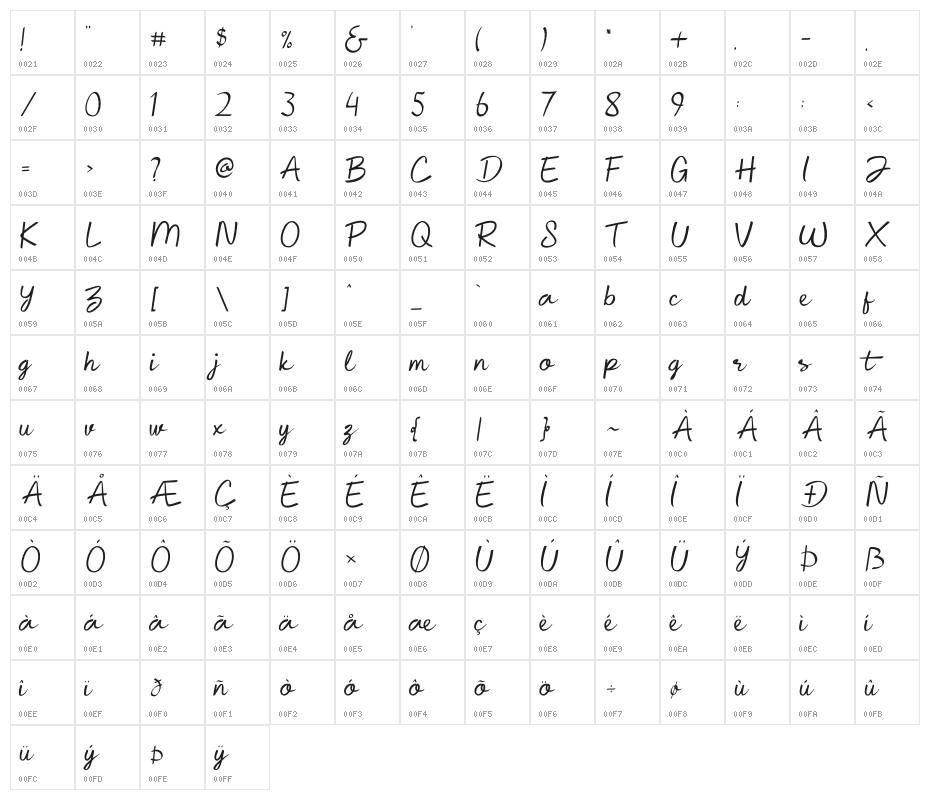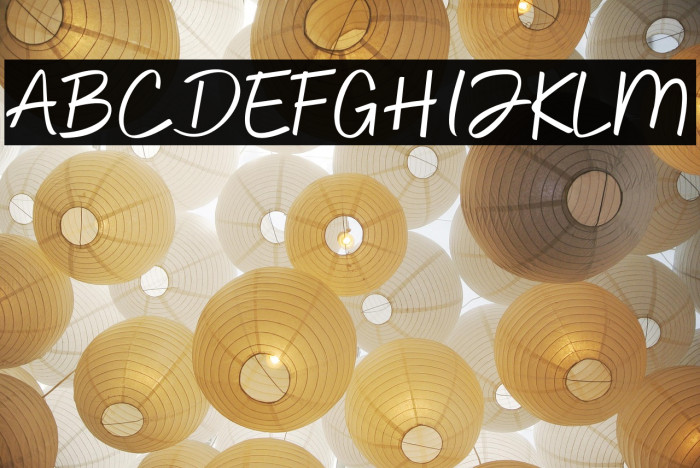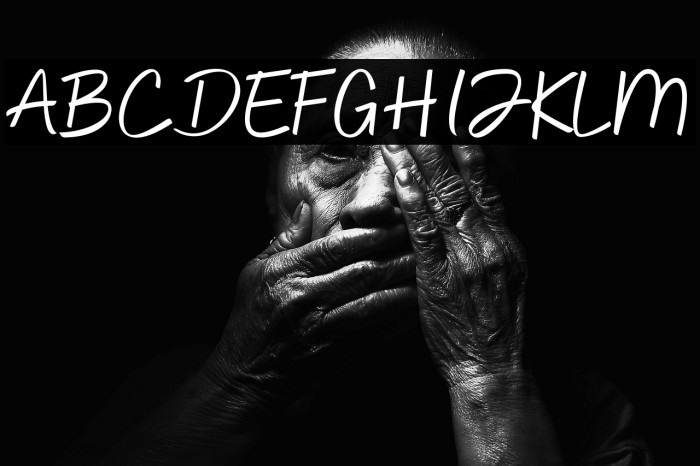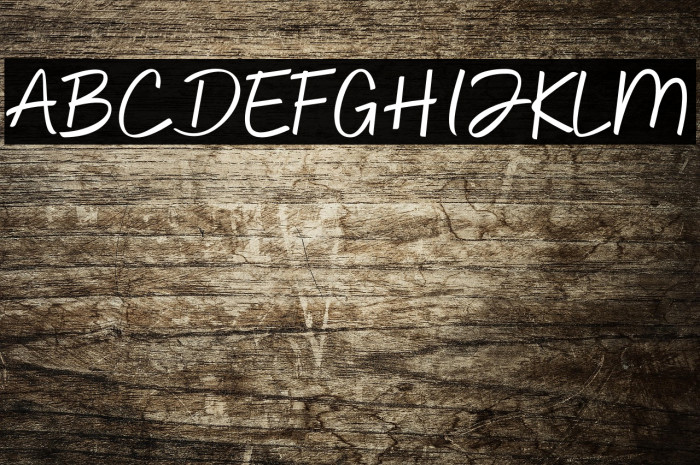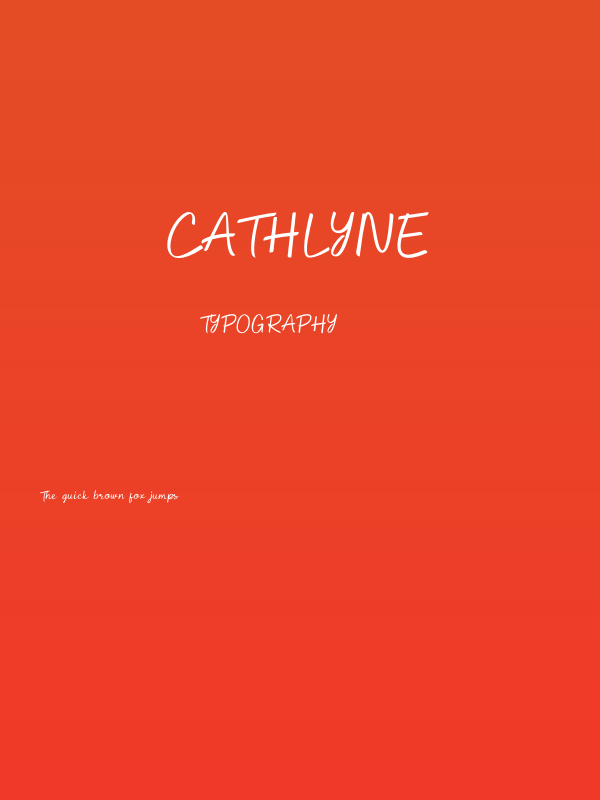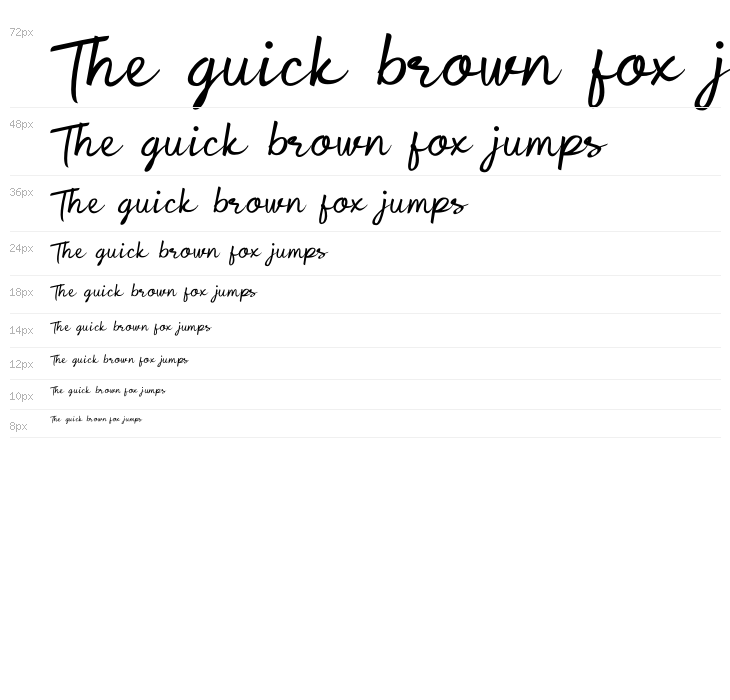
Cathlyne Font
Cathlyne Description
This font features a lively and flowing script style, characterized by its elegant and smooth curves. The uppercase letters are slightly more formal with a consistent slant, while the lowercase letters maintain a casual and approachable feel. The numerals are clear and legible, complementing the overall aesthetic. Special characters are well-integrated, maintaining the font's cohesive look. The strokes are moderately thick, providing good readability without sacrificing the font's decorative appeal.